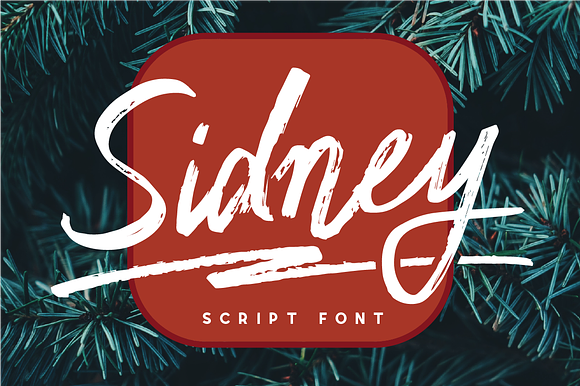
Sidney [clean&rough]
Check out Sidney, our new free script font! It is a messy typeface with 300 glyphs, ligatures, and extra letters. You can perfectly combine the two styles (clean & rough) for your very unique design. And don’t forget to add some of the vectors, which are included in the full version of Sidney. Enjoy!
Sidney [clean&rough] by Shaped Fonts fits naturally into Branding, posters, packaging, typography.